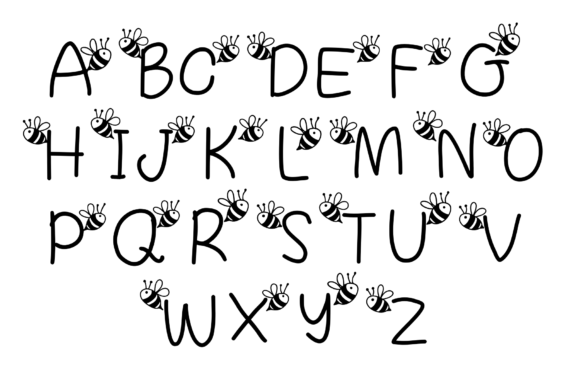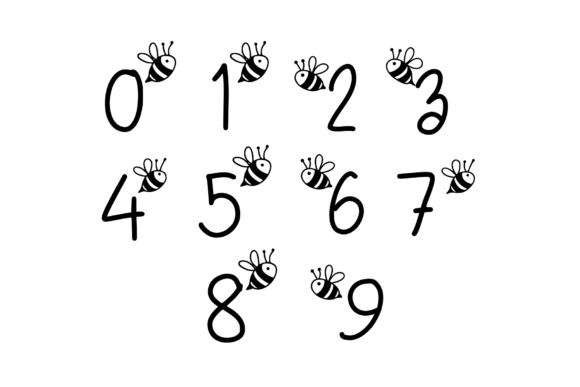
Baby Bee Font: The Sweetest Decorative Font for Your Creative Projects
Are you a designer, crafter, or DIY enthusiast looking for a unique and adorable font to elevate your creative projects? Look no further than the Baby Bee Font! This charming decorative font features bee ornaments that will add a touch of whimsy and sweetness to any design. In this article, we’ll dive into the world of Baby Bee Font, exploring its features, uses, and benefits for designers and crafters.
What is Baby Bee Font?
Baby Bee Font is a cute and unique decorative font that showcases bee ornaments in a playful and artistic way. This font is perfect for anyone who loves bees, nature, and all things cute. With its distinctive design, Baby Bee Font is sure to make your creative projects stand out from the crowd.
Features of Baby Bee Font
So, what makes Baby Bee Font so special? Here are some of its key features:
- Unique Bee Ornaments: The font features adorable bee ornaments that add a touch of whimsy to any design.
- Cute and Playful: Baby Bee Font is perfect for projects that require a playful and lighthearted touch.
- Decorative: This font is designed to be decorative, making it perfect for use in titles, headings, and other design elements.
- Versatile: Baby Bee Font can be used in a variety of creative projects, from Instagram graphics to calligraphy scripts.
Uses of Baby Bee Font
So, how can you use Baby Bee Font in your creative projects? Here are some ideas to get you started:
- Instagram Graphics: Add a touch of sweetness to your Instagram posts and stories with Baby Bee Font.
- Calligraphy Scripts: Use Baby Bee Font to create beautiful calligraphy scripts for DIY projects, such as wedding invitations, greeting cards, and more.
- DIY Crafts: Add a personal touch to your DIY crafts, such as scrapbooking, journaling, and paper crafting, with Baby Bee Font.
- Branding and Packaging: Use Baby Bee Font to create unique and eye-catching branding and packaging designs for your business.
Benefits of Using Baby Bee Font
So, why should you choose Baby Bee Font for your creative projects? Here are some benefits:
- Unique and Eye-Catching: Baby Bee Font is sure to grab attention and make your designs stand out.
- Versatile: Baby Bee Font can be used in a variety of creative projects, making it a great addition to your font collection.
- Fun and Playful: This font is perfect for projects that require a playful and lighthearted touch.
Tips for Using Baby Bee Font
Here are some tips for using Baby Bee Font in your creative projects:
- Use it Sparingly: Use Baby Bee Font sparingly to add emphasis and visual interest to your designs.
- Pair it with Other Fonts: Pair Baby Bee Font with other fonts to create a unique and eye-catching design.
- Have Fun: Most importantly, have fun and be creative with Baby Bee Font!
In conclusion, Baby Bee Font is a unique and adorable decorative font that is perfect for designers, crafters, and DIY enthusiasts. With its distinctive bee ornaments and playful design, this font is sure to add a touch of whimsy and sweetness to any creative project. Whether you’re looking for fonts for Instagram or calligraphy scripts for DIY projects, Baby Bee Font is a great choice. So why not give it a try and see what creative possibilities you can come up with?